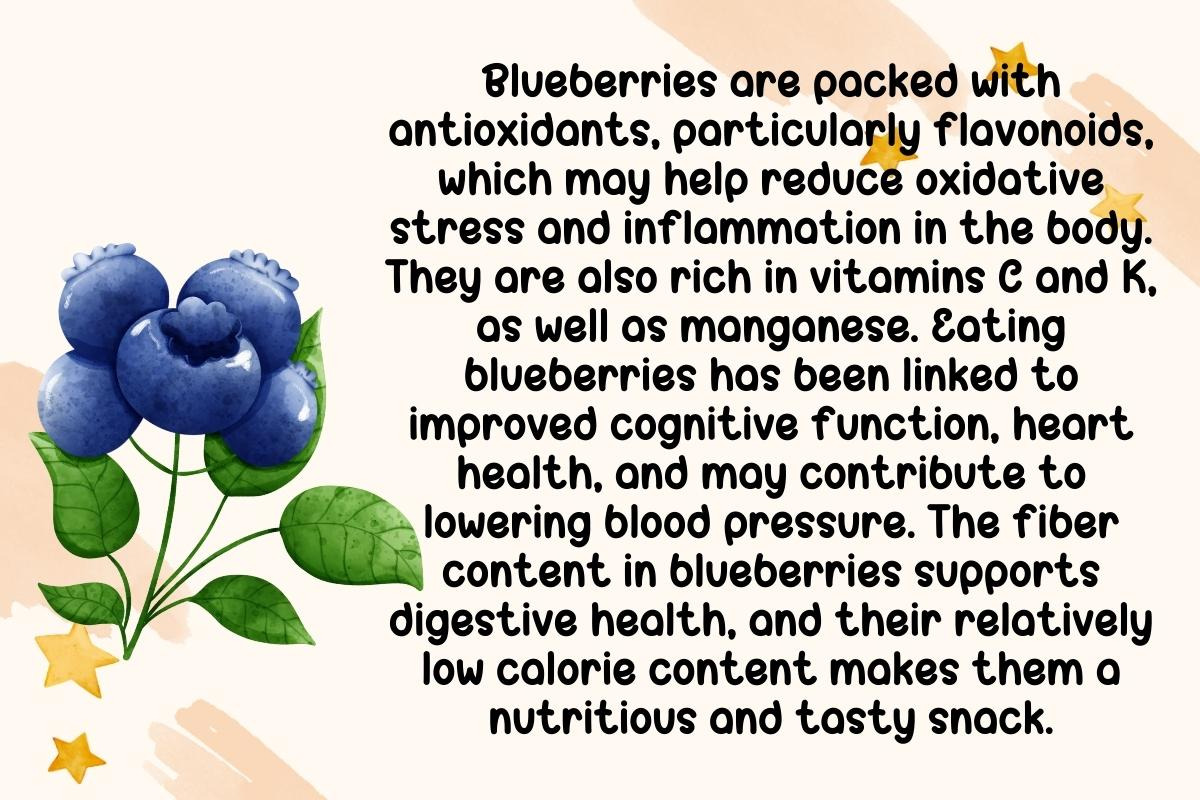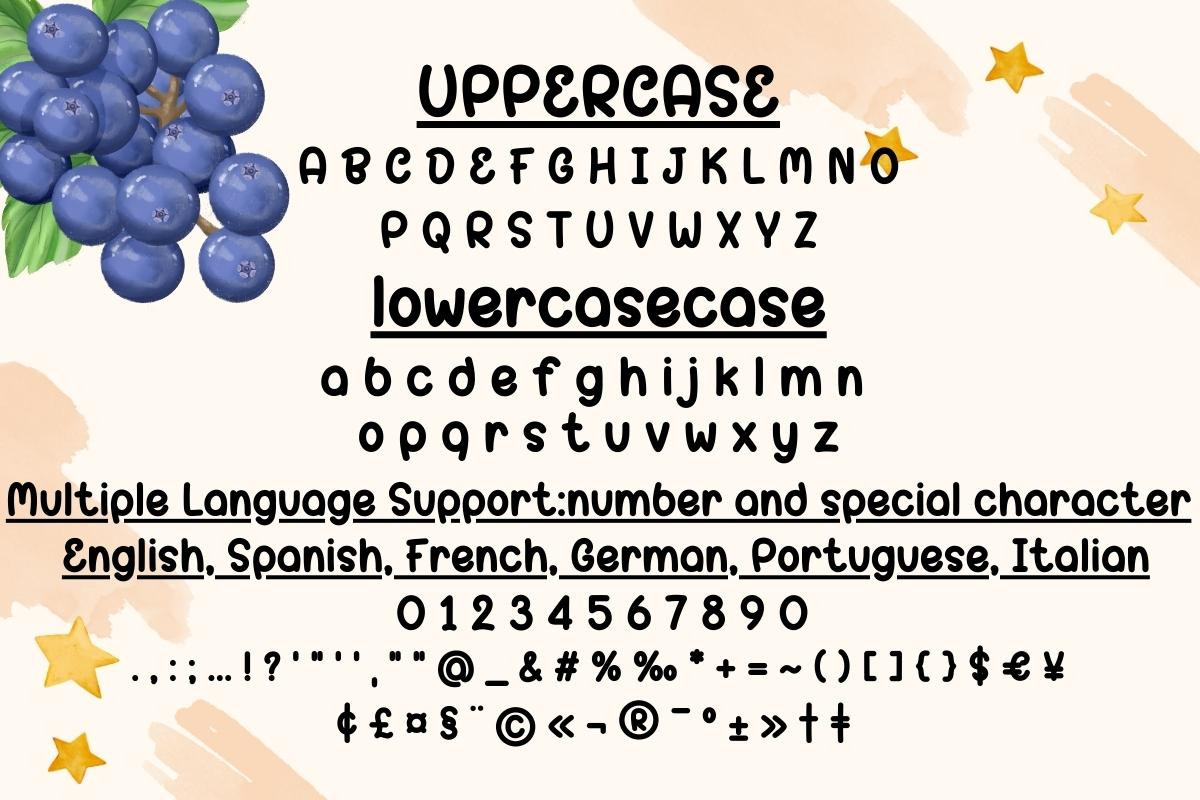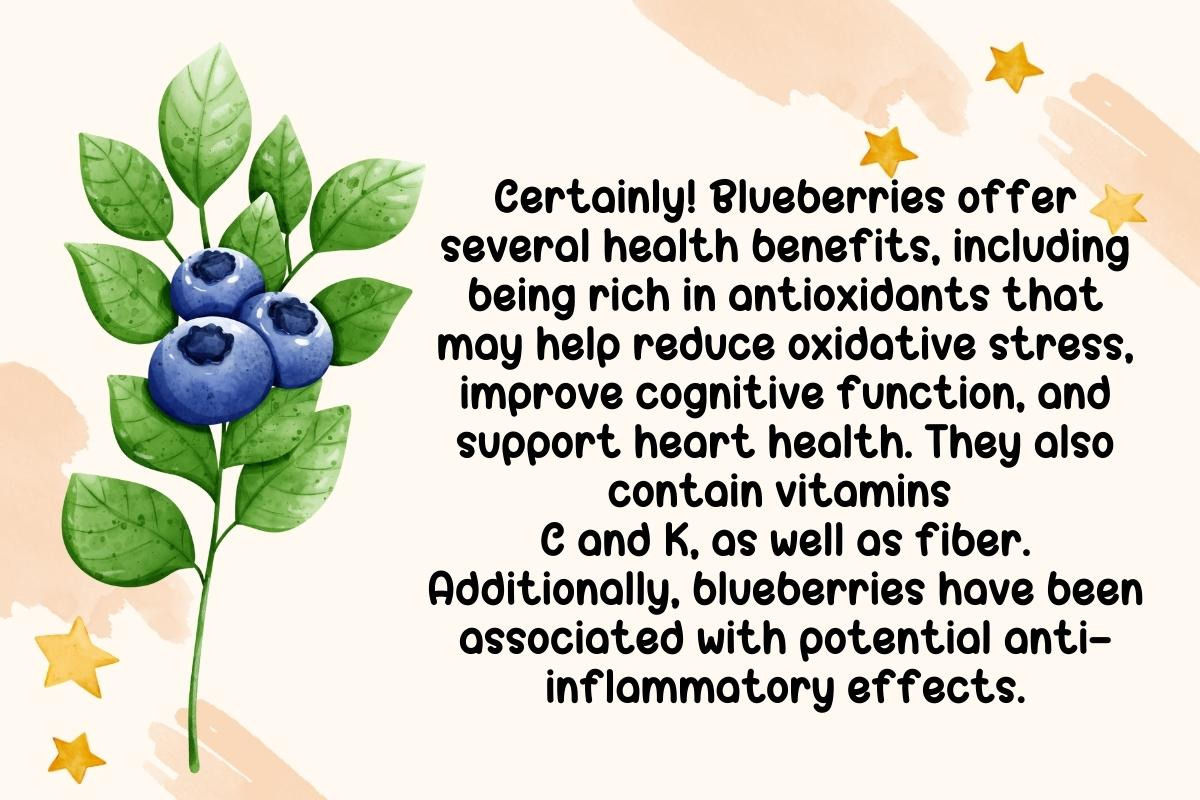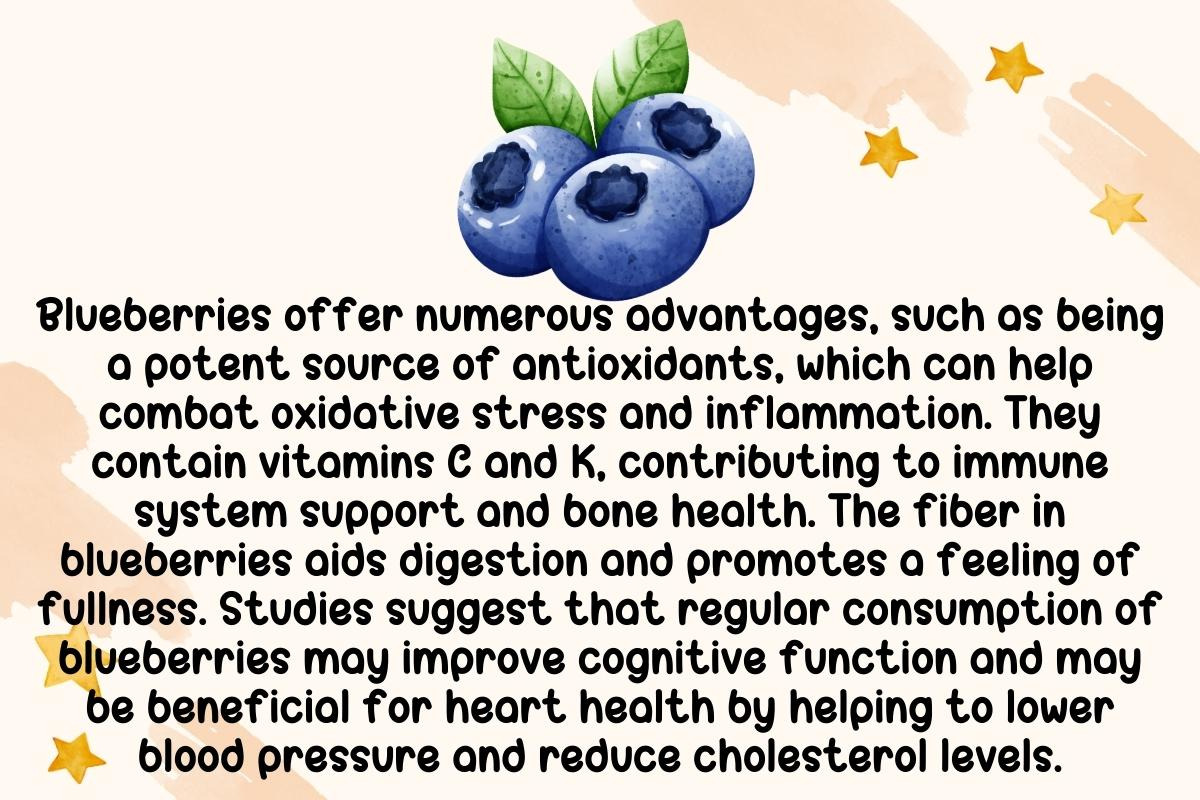
Blue Berries - Handwritting
Dive into the enchanting world of "Blue Berries" font, where each letter is a tiny burst of berry brilliance! Infuse your text with the delightful charm of juicy blueberries, turning every word into a sweet symphony. Let your words pop with fruity flair—Blue Berries font is the berry best choice for cuteness!